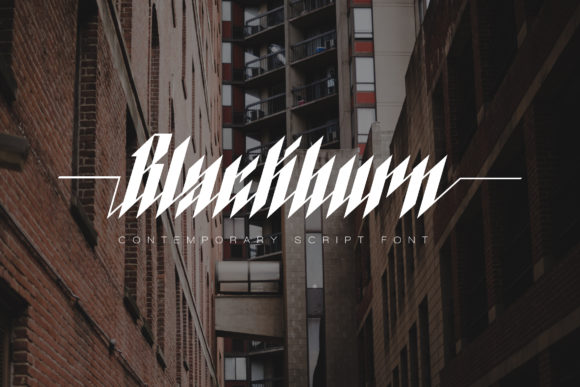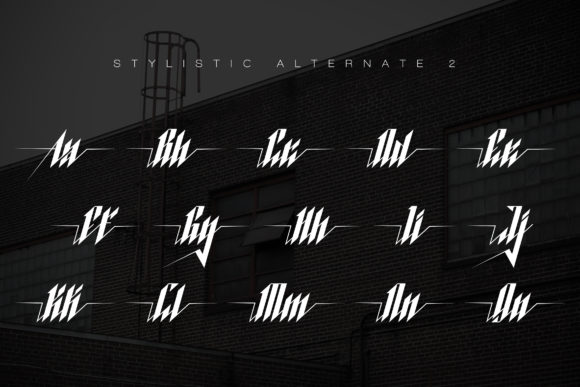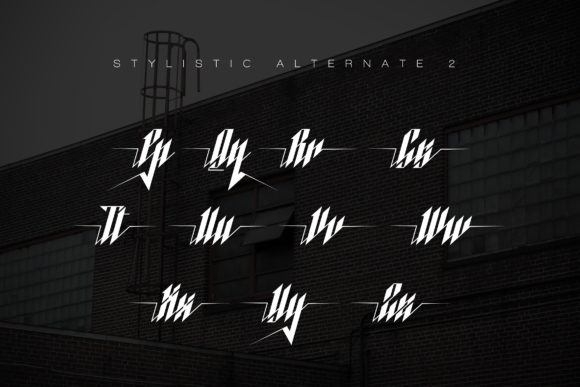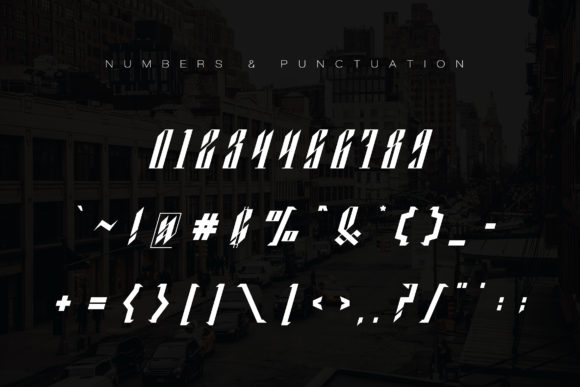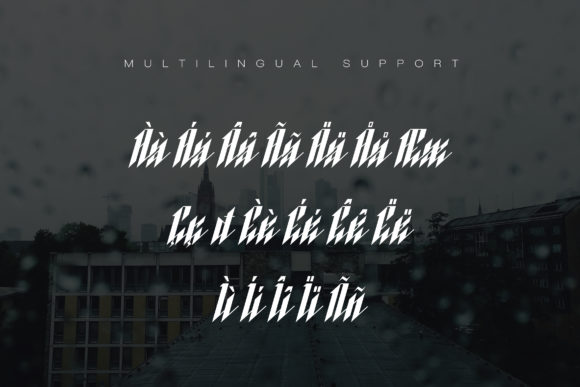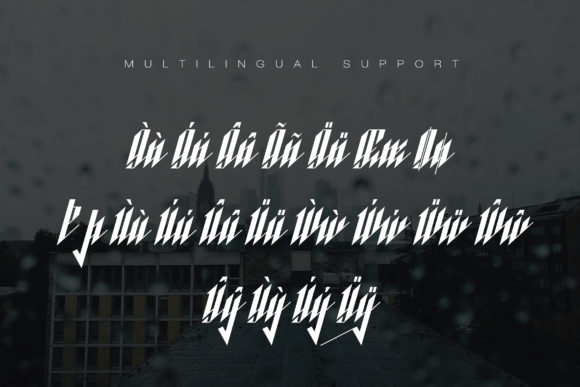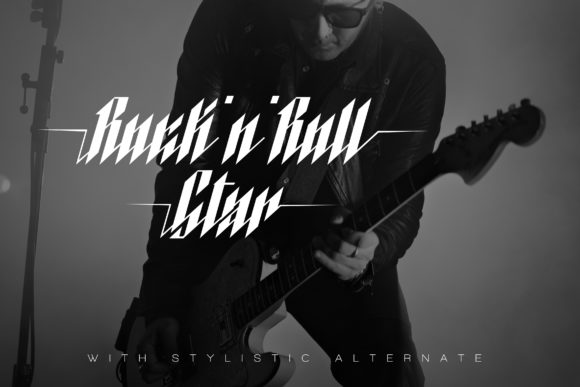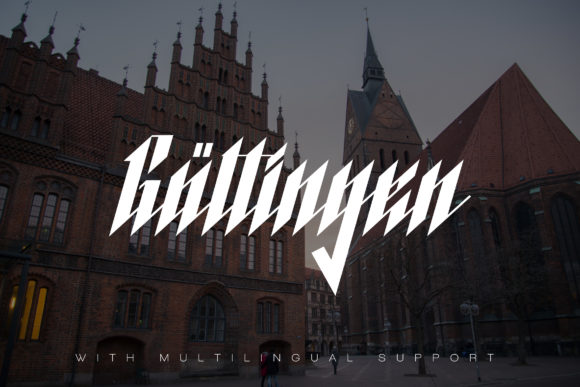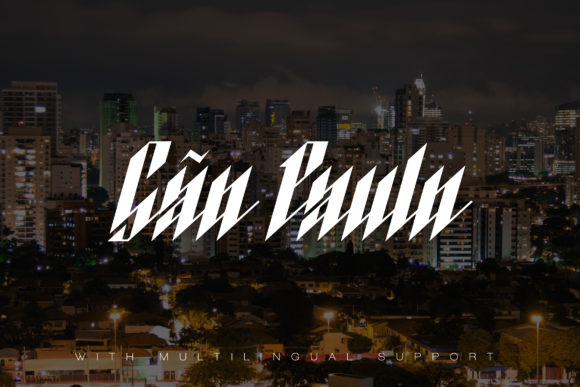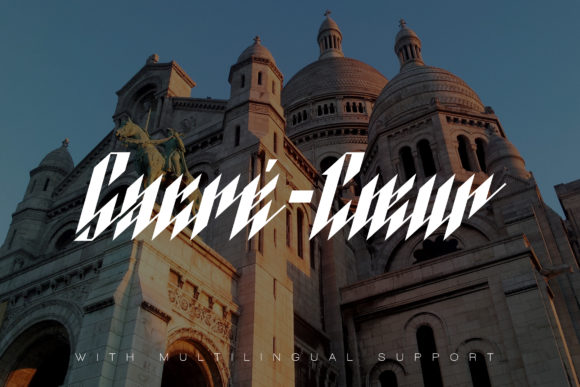
HomeScript FontsBlackburn Font Script Fonts Blackburn Font FacebookXPinterestWhatsApp Blackburn Font Poster 2 Blackburn Font Poster 3 Blackburn Font Poster 4 Blackburn Font Poster 5 Blackburn Font Poster 6 Blackburn Font Poster 7 Blackburn Font Poster 8 Blackburn Font Poster 9 Blackburn Font Poster 10 Blackburn Font Poster 11 Blackburn Font Poster 12 Blackburn Font Poster 13 Blackburn Font Poster 14 About Blackburn Font Blackburn is a fun and cool handwritten font with a unique style. Get inspired by its contemporary style! DOWNLOAD NOW People also explored Winter Font Mouchoir Monogram Cats Lettering Font Julia Font Simple Flowers Font Fiorentina Font Streamline Font Quitars Font Precious Soul Font 324 0 TagsBlackburn Font Previous articleLunik Sangat FontNext articleBlacknight Font LEAVE A REPLY Cancel reply Comment: Please enter your comment! Name:* Please enter your name here Email:* You have entered an incorrect email address! Please enter your email address here Website: Save my name, email, and website in this browser for the next time I comment. Personal Use Free Bright Dreams Personal Use Free Read more about this font Allea Sweet Personal Use Free Read more about this font Font Slice Personal Use Free Read more about this font Haris Wood Personal Use Free Read more about this font BLOG Top 10 Handwritten Fonts That Elevate Your Designs Top 10 Handwritten Fonts That Will Elevate Your Designs Handwritten fonts bring a warm, personal touch to every creative project. Whether you're designing logos, invitations,... How to Install and Use Fonts on Windows, macOS, and Web Projects The 10 Best Handwriting Fonts to Add Personality to Your Designs Transform Your Website: Elevate Your Typography with 7 Best Web Font Generators